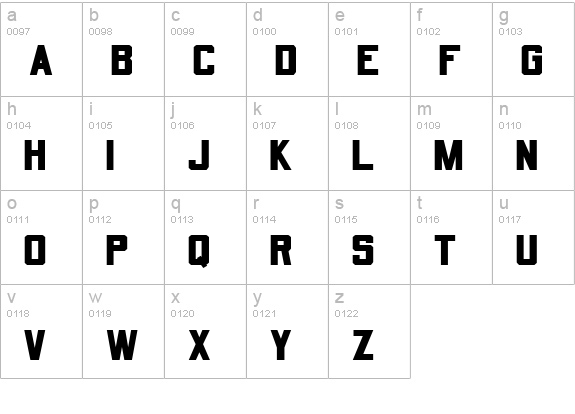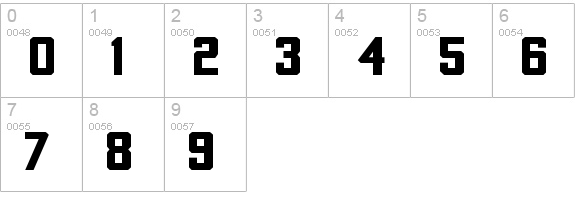
Introducing Quarterback, a dynamic and versatile font that embodies the strength, precision, and agility of a skilled quarterback on the field. This font is designed to bring a touch of athleticism and sophistication to your designs. With its bold and powerful letterforms, Quarterback commands attention and makes a bold statement. Whether you're designing sports-related graphics, branding materials, or simply want to add a touch of energy to your projects, Quarterback is the perfect choice. One of the best features of Quarterback is that it is available for free download at FontsMarket.com. This means that you can easily add this font to your collection without breaking the bank. It's an opportunity to enhance your design work with a high-quality typeface without any financial barriers. The versatility of Quarterback is truly impressive. It works seamlessly in both headline and body text, ensuring that your message is conveyed with utmost clarity and impact. The clean and legible letterforms of this font make it easily readable even at smaller sizes, making it perfect for various design applications. Whether you're designing for print or digital media, Quarterback's well-balanced proportions and carefully crafted curves ensure a seamless reading experience. Its modern and contemporary design adds a touch of sophistication while maintaining a sense of approachability. So why wait? Experience the power and versatility of Quarterback font and elevate your designs to the next level. Download it for free at FontsMarket.com and unlock a world of possibilities for your creative projects. Whether you're a professional designer or a passionate hobbyist, Quarterback is here to help you achieve your design goals with style and finesse.